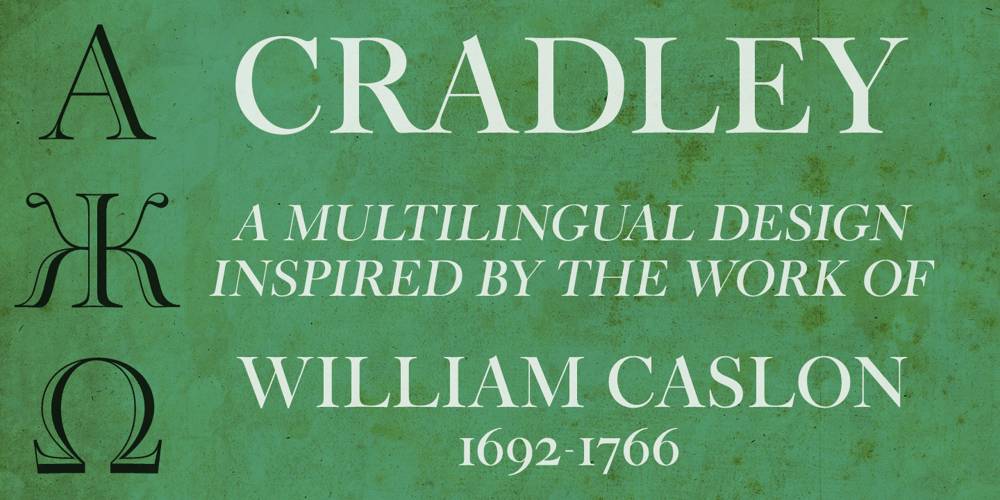
Cradley Font Family was designed by Jason Castle and published by CastleType. Cradley contains 3 styles and family package options. Cradley™, a CastleType original, was inspired by the work of William Caslon, considered by some to be the finest type designer of the Baroque era. With its classic proportions, beautifully bracketed serifs, and high contrast, Cradley is a contemporary design with a Baroque spirit. The family of three beautifully crafted fonts support most European languages, including modern Greek and many languages that use the Cyrillic alphabet. Includes over 30 “flowers” (as Caslon called them), useful for creating borders or adding an accent. Спасибо / thanks to Alexei Elfimov for his suggestions for improving the Cyrillic, and to Max Fernandes for his helpful feedback and overall enthusiasm for this design.